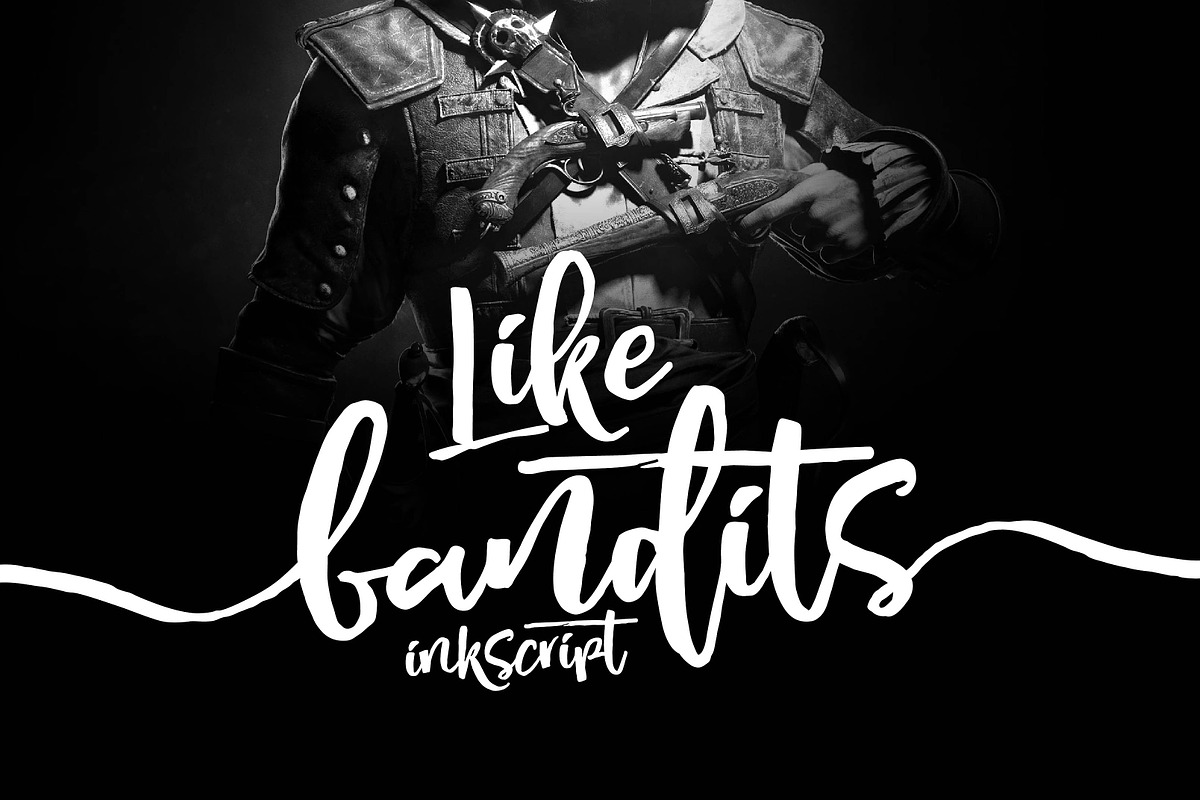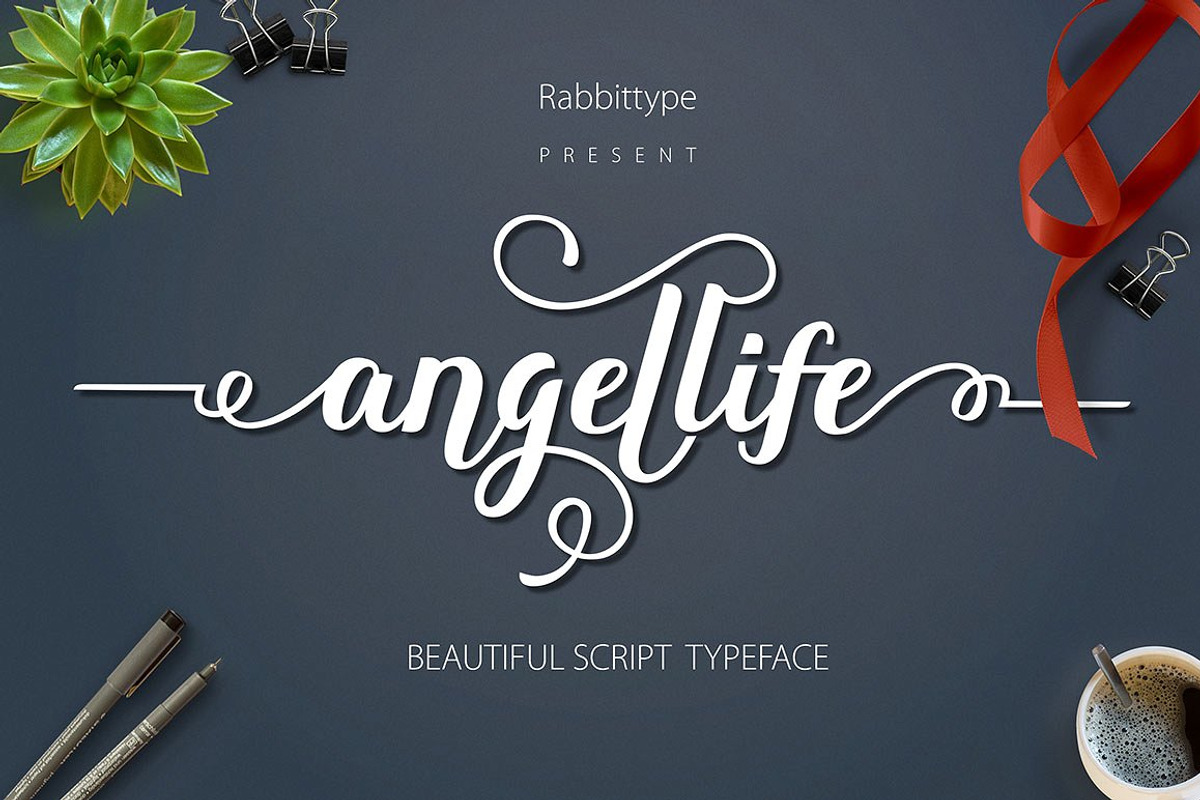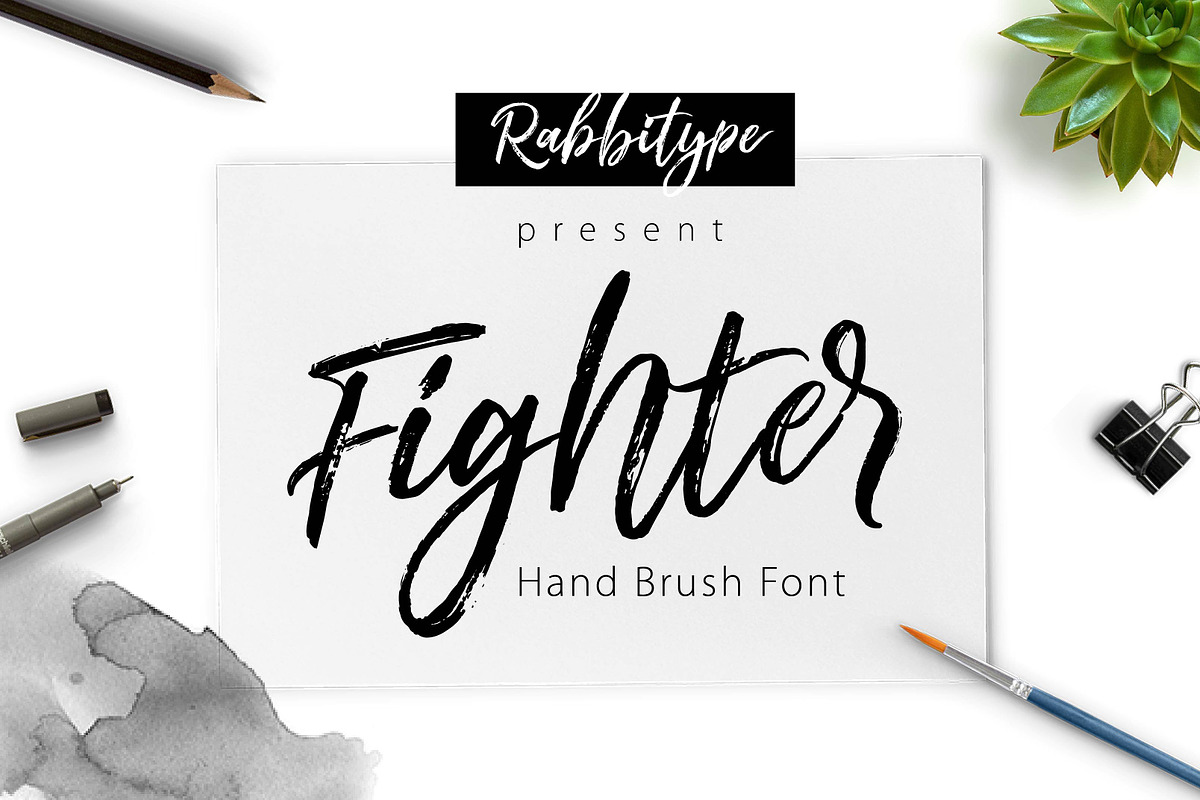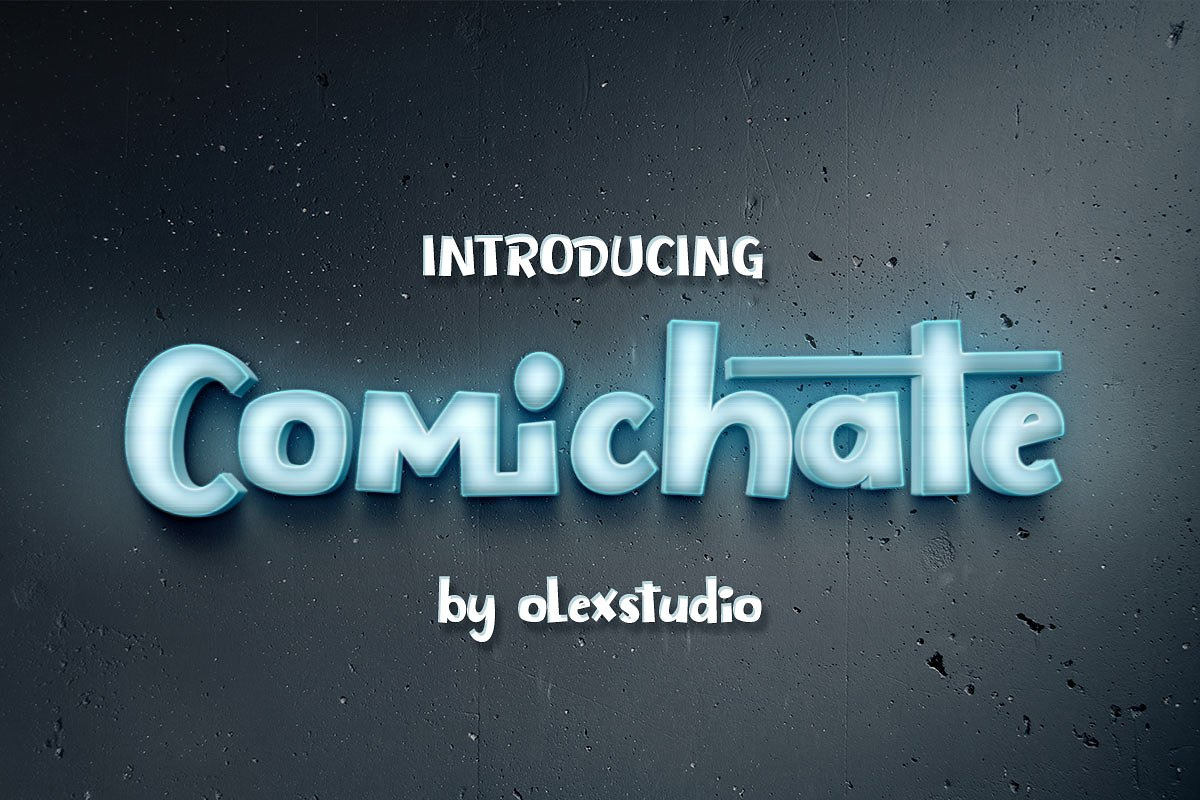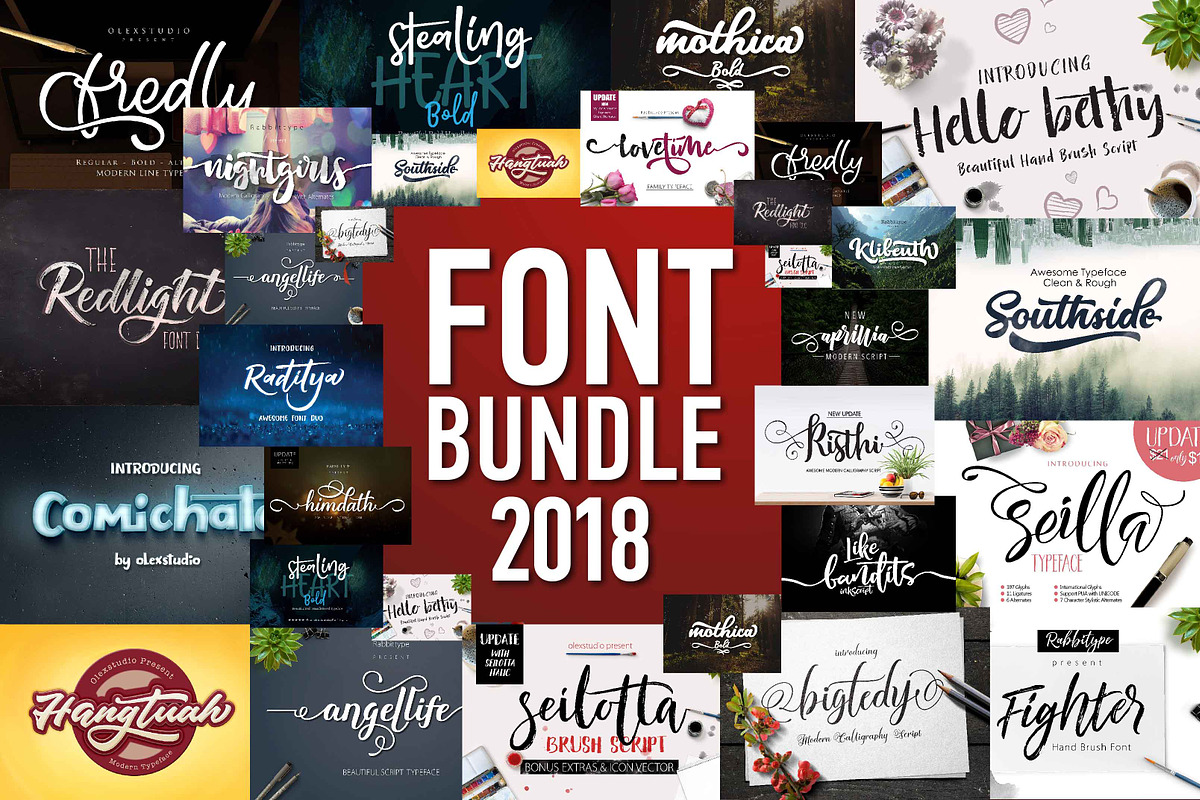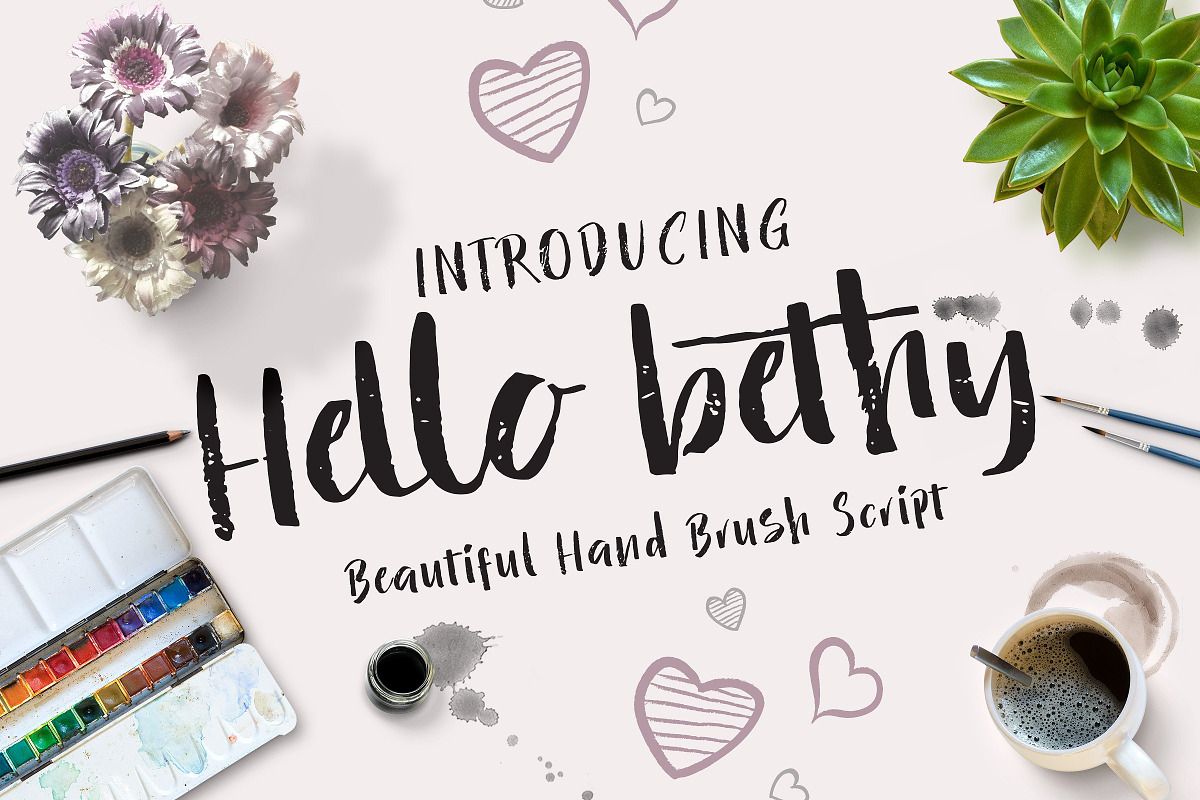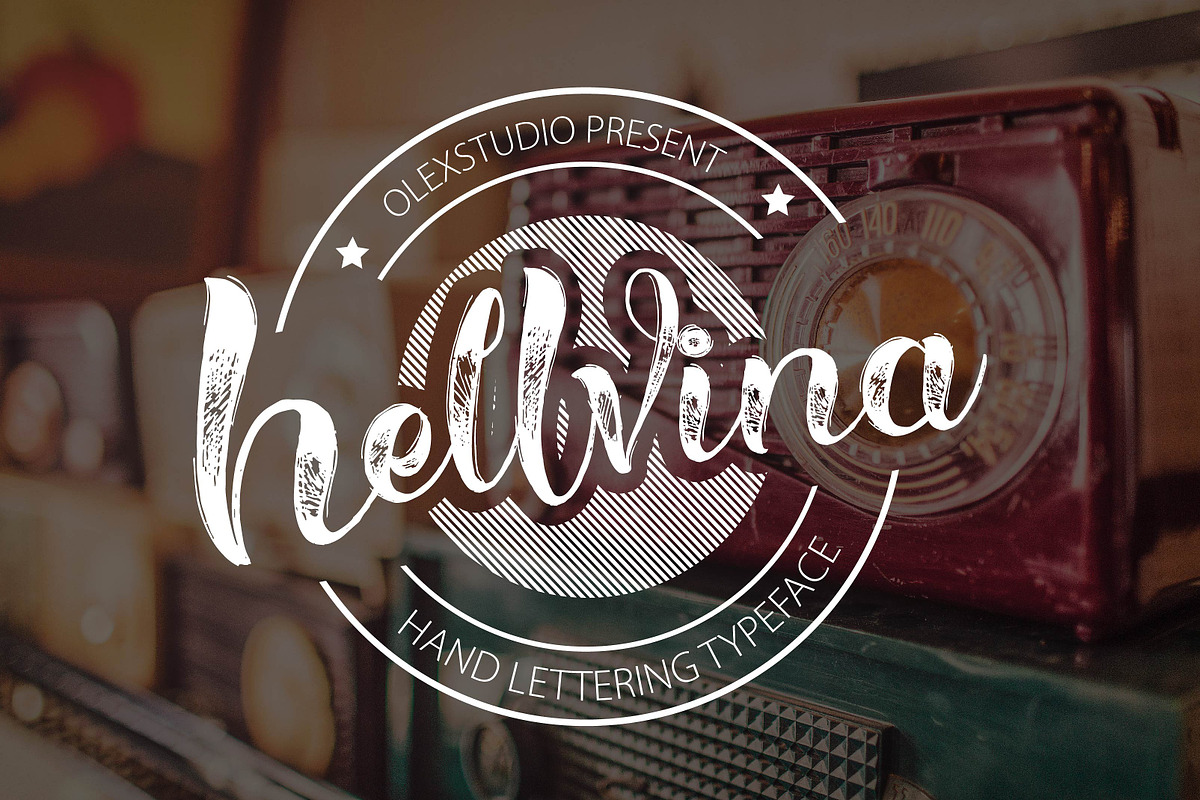
FONT BUNDLE 2018
Amazing FONT BUNDLE 2018 !!!
This package includes 47 Unique Script Font and 2 Display Font. with hundreds of glyphs, including alternates, ligatures, contextual alternates and international language support. which can be accessed using OpenType savvy programs like Adobe Illustrator, Adobe InDesign, CorelDraw X6-X7, Microsoft Word 2010 or later versions.
All fonts is perfect for branding, Invites, planner stickers, fabric, cushions, blogs, logos, weddings, scrapbooking, posters, packaging, nail art, birth announcements, photo overlays, wall art, quotes, printables, bags, shirts etc.
- This package includes 47 Unique Script Font and 2 Display Font.
- with hundreds of glyphs, including alternates, ligatures, contextual alternates and international language support.
Why FONT BUNDLE 2018 is worth a look
FONT BUNDLE 2018 by Olexstudio fits naturally into Branding, posters, packaging, typography.